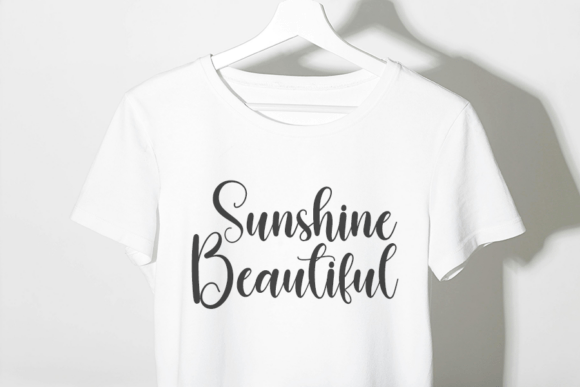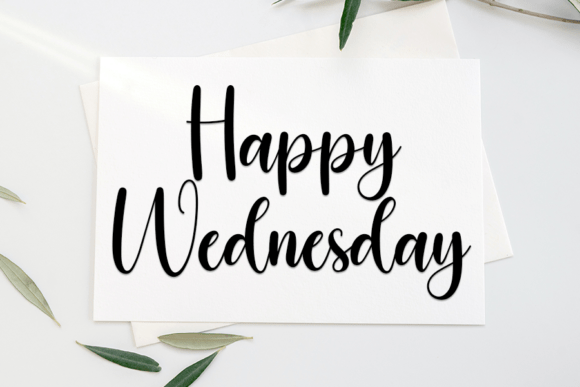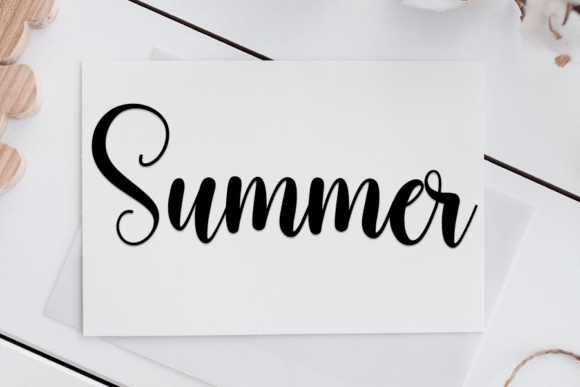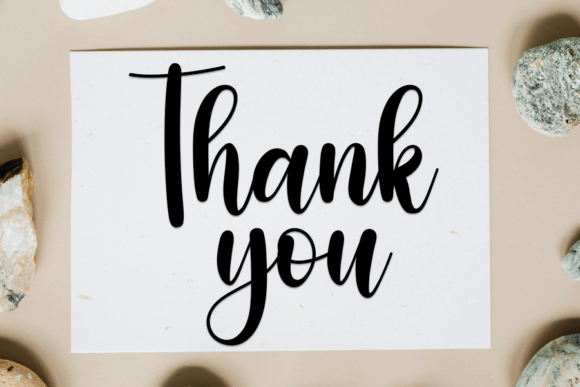
The Magic of Disney Font: Bringing Whimsy to Your Designs
You know that moment when you stumble upon a font that sparks a wave of creativity? For designers, it’s like discovering a treasure trove of inspiration. And for those who love Disney, the iconic brand’s latest font offering is a dream come true. Introducing the Disney Font, a delicate handwritten font that adds a touch of magic to any design project.
| 👤 Author | ade studio |
With its unique and playful style, the Disney Font is perfect for creating eye-catching titles, labels, and invitations. Whether you’re a graphic designer, food stylist, or simply a fan of all things Disney, this font is sure to bring a smile to your face. Its versatility makes it a valuable asset for designers looking to add a touch of whimsy to their work.
Key Features of Disney Font
- Font Family: The Disney Font is a custom-designed font family, which includes multiple styles and weights.
- Size and Resolution: Designed to be scalable, the Disney Font can be used in various sizes, from small to large, without compromising its readability or aesthetic appeal. It is optimized for use at resolutions of 72 dpi and higher.
- Unique Characteristics: The Disney Font features a distinctive, elegant, and whimsical design, with subtle flair and curved lines that evoke a sense of magic and wonder.
- Legibility: The font is designed to be highly legible, making it suitable for use in a wide range of applications, including signage, advertising, and branding.
- Customization: The Disney Font can be customized to suit specific design needs, with various color options and layout styles available.
Disney Font Review
As a designer, I was excited to dive into the Disney Font. Here are my thoughts on what works well and what doesn’t:
- The font’s playful and whimsical feel is perfect for projects that require a touch of magic. It’s ideal for children’s books, theme park signage, or any other design that needs to evoke a sense of wonder.
- The font’s curves and lines are carefully crafted to evoke the classic Disney style. It’s a great choice for anyone looking to create a cohesive brand identity that’s instantly recognizable as Disney.
- The font is highly customizable, allowing designers to adjust the size, color, and spacing to fit their specific needs.
- The font is limited to a single style, which can make it feel restrictive for more complex design projects. There are no bold or italic variations, which can limit its versatility.
- The font’s readability can be a concern in certain contexts. The letterforms can be quite ornate, which can make them difficult to read in smaller sizes or at a distance.
Overall, the Disney Font is a fun and versatile choice for designers who need to evoke a sense of whimsy and wonder. While it has some limitations, it’s a great option for projects that require a touch of magic.
The Disney font is commonly used for:
- Children’s birthday party invitations and decorations.
- Family photo albums and scrapbooks.
- Wedding invitations and decorations.
For a magical and whimsical look, use the Disney font in combination with other vintage or distressed fonts.
Experiment with different font sizes and colors to create visual interest.
Use the Disney font to add a touch of nostalgia and sentimentality to your designs.